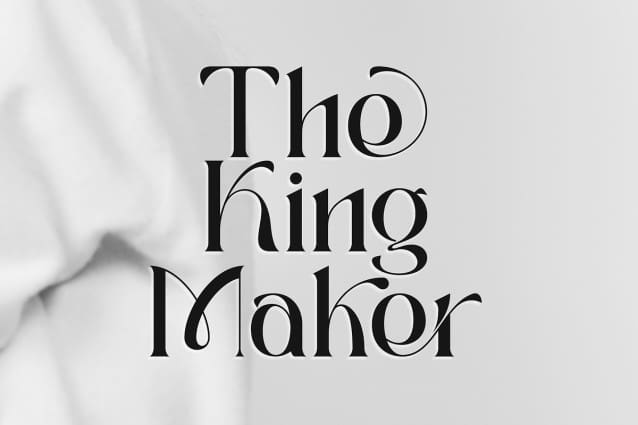
Qinferly Font
Qinferly Font, a serif font that seamlessly blends bold elegance with distinctive character forms. Ideal for elevating a variety of design projects, from luxurious product packaging to refined branding, Qinferly’s PUA encoding ensures effortless access to an array of unique glyphs and swashes, guaranteeing exceptional outcomes for your creative pursuits